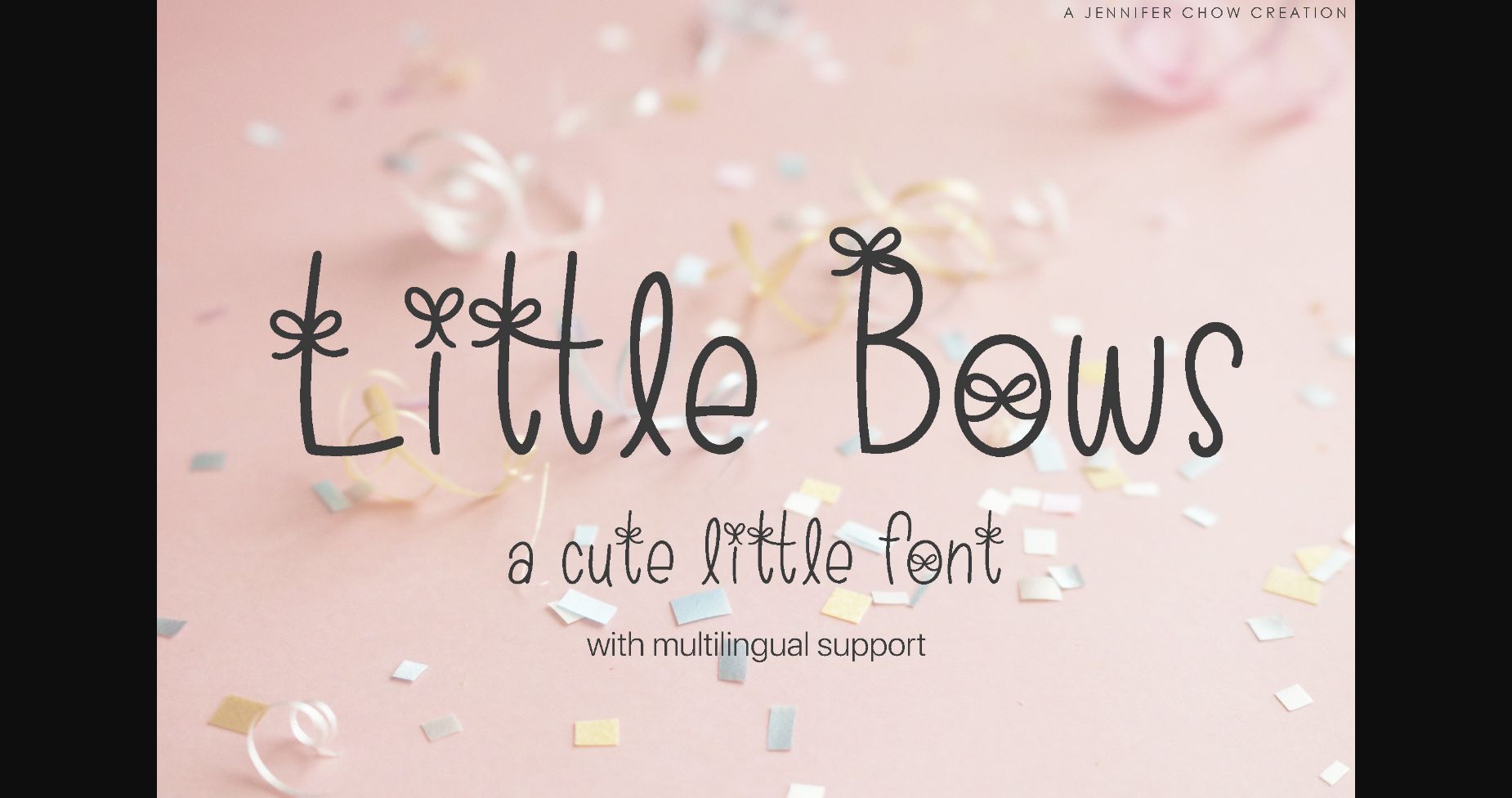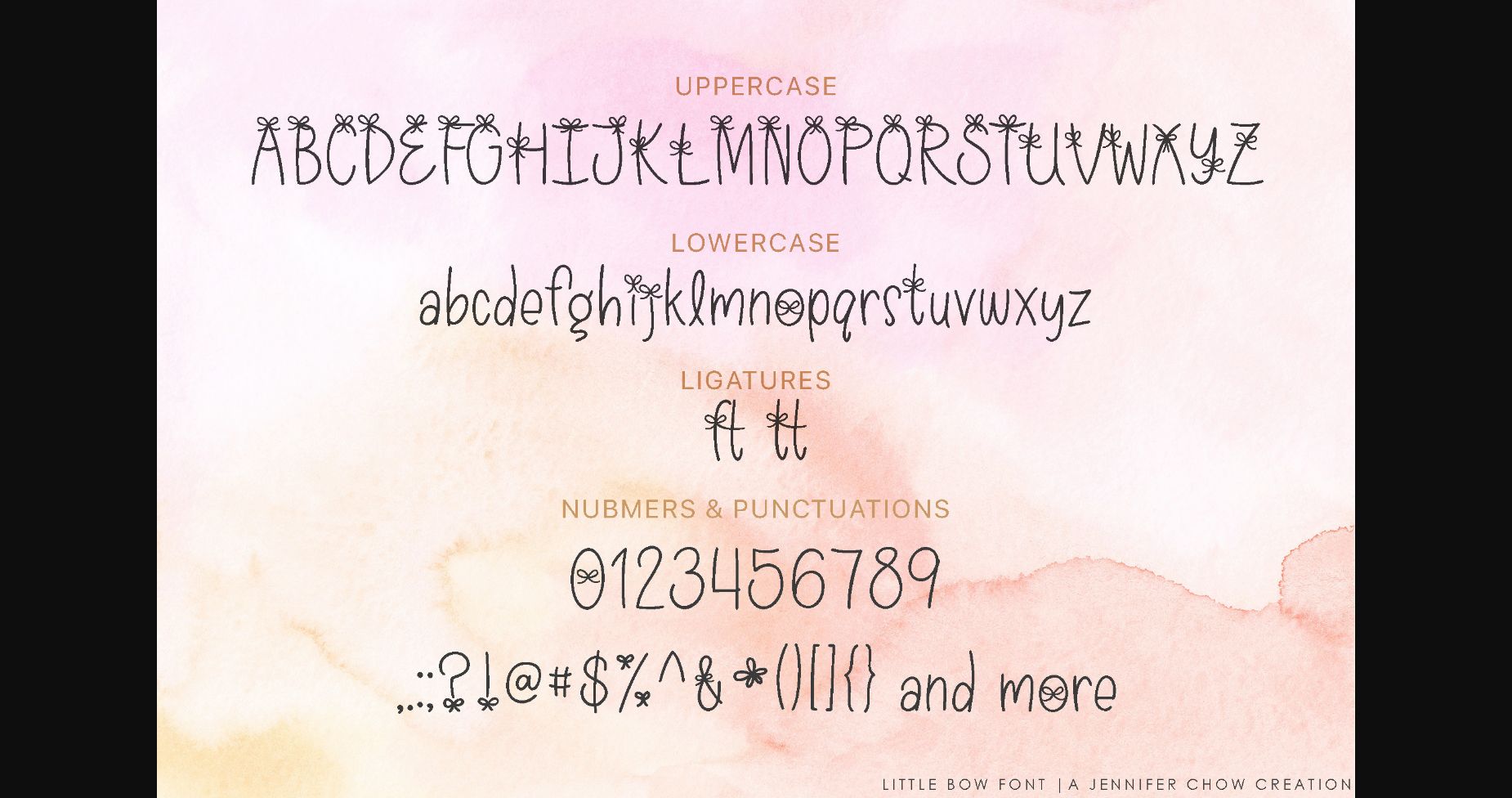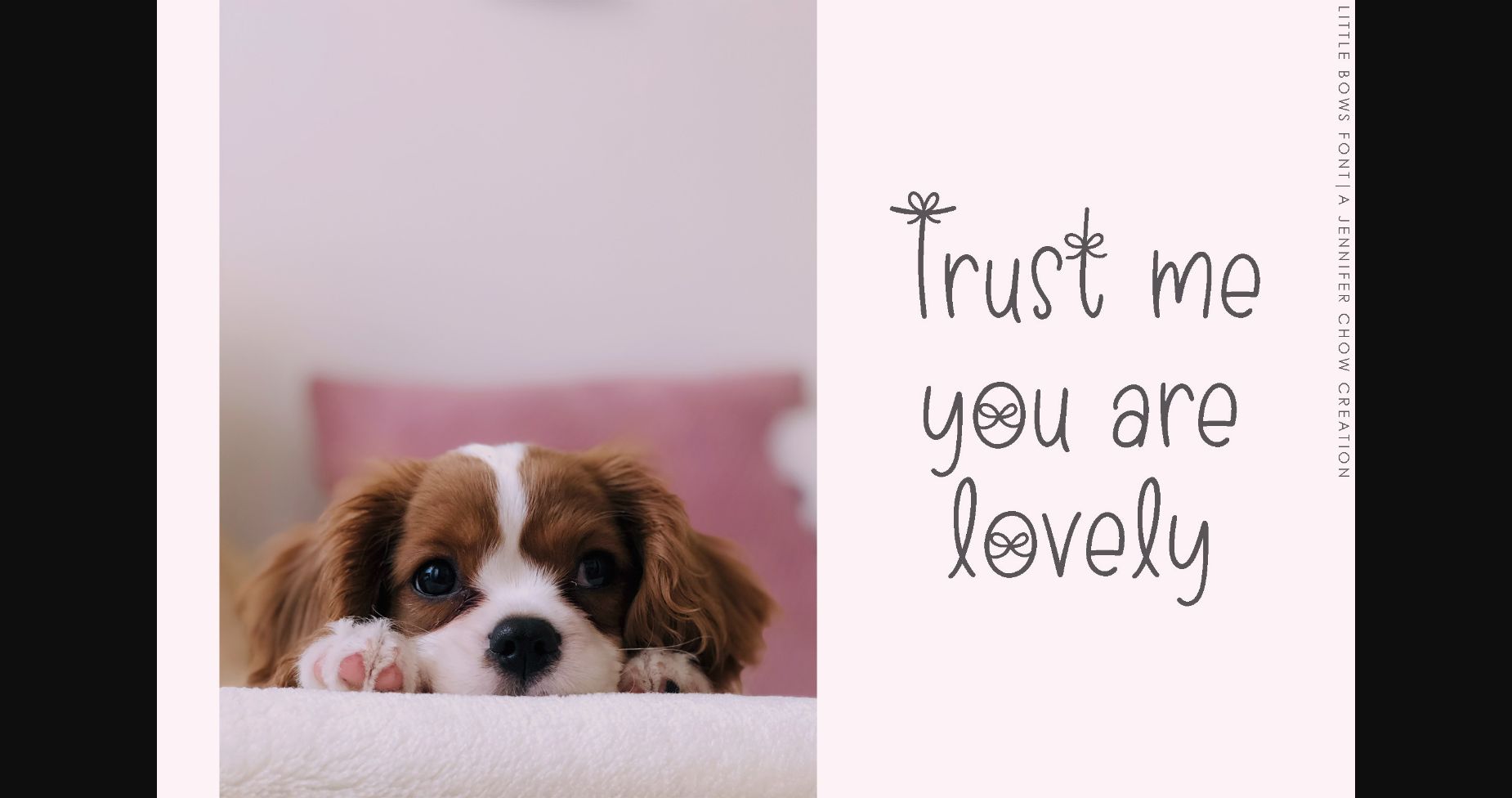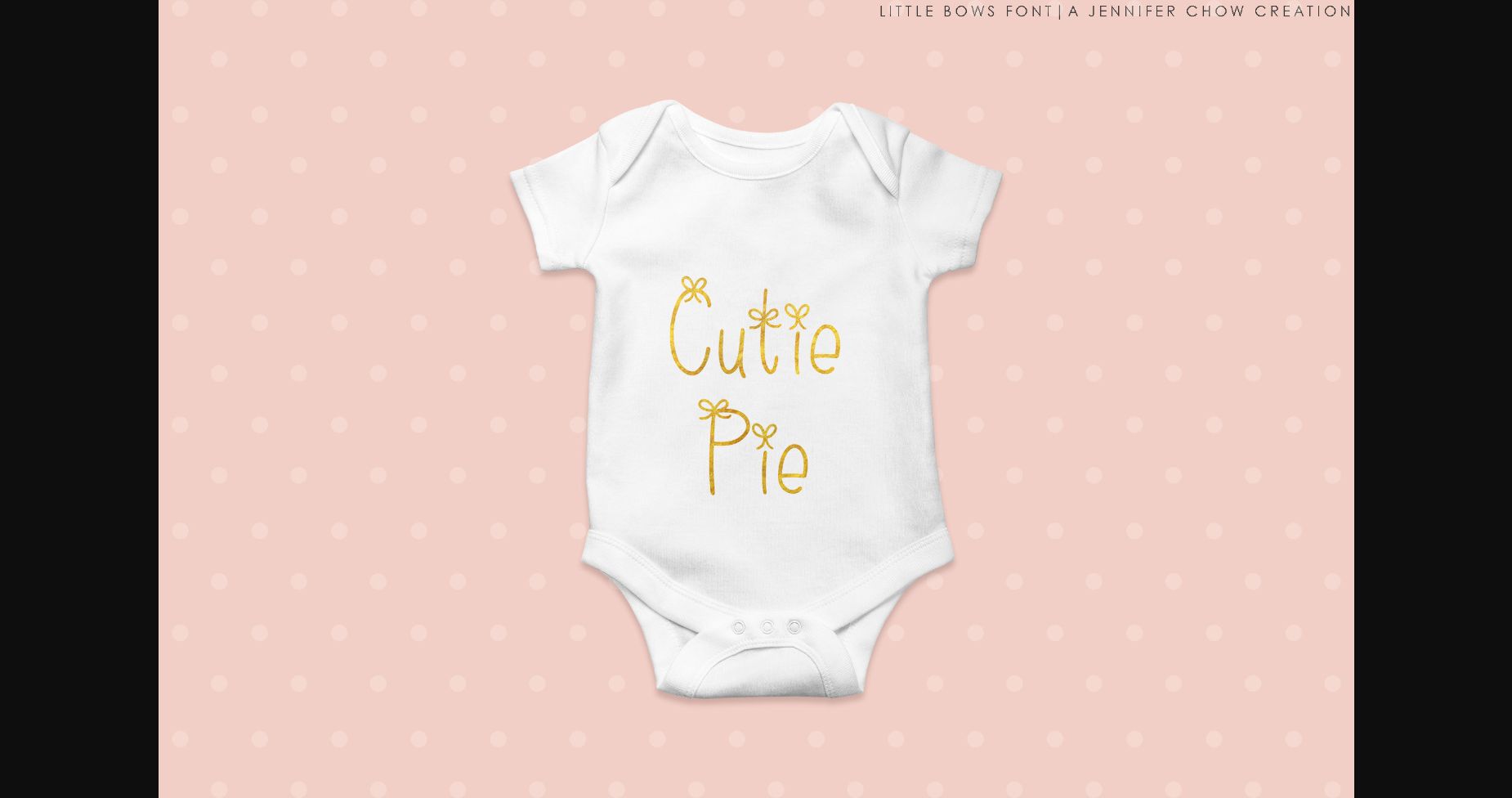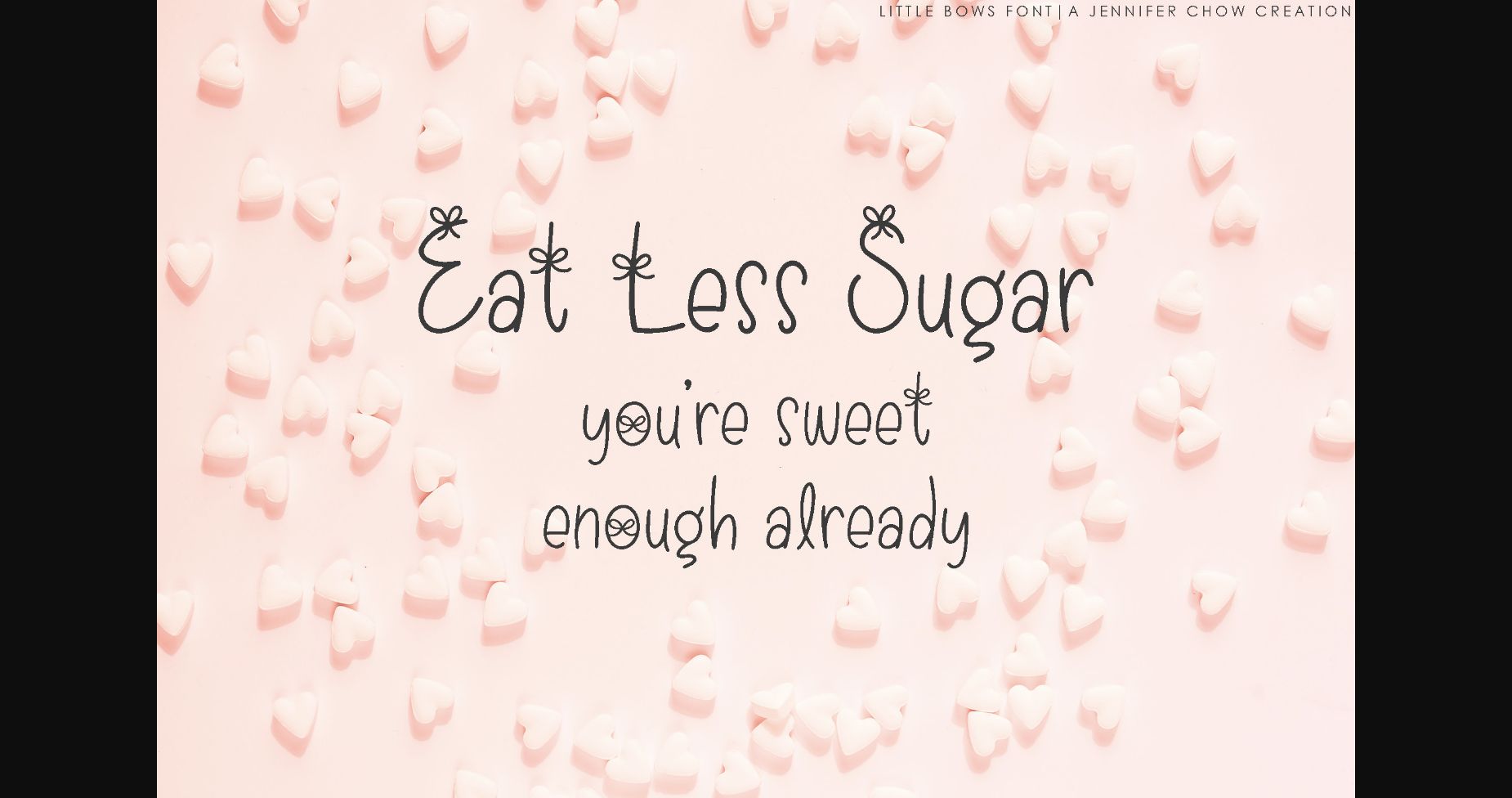
HomeSans Serif FontsLittle Bows Font Sans Serif Fonts Little Bows Font FacebookXPinterestWhatsApp 1 of 7 ... Little Bows Font Poster 2... Little Bows Font Poster 3... Little Bows Font Poster 4... Little Bows Font Poster 5... Little Bows Font Poster 6... Little Bows Font Poster 7... About Little Bows Font Little Bows is a cute, dainty and romantic sans serif font. Whatever the topic, this font will be a wonderful asset to your font library, as it has the potential to enhance any creation. DOWNLOAD NOW People also explored Happy Day Font Betran Font Keylla Sativa Font Doctor John Font Cutterlines Font Cute Christmas Doodles Font Canbera Grozny Font Just Chilling Font Sarisha Font 312 0 TagsLittle Bows Font Previous articleTestarossa FontNext articleBerghan Font LEAVE A REPLY Cancel reply Comment: Please enter your comment! Name:* Please enter your name here Email:* You have entered an incorrect email address! Please enter your email address here Website: Save my name, email, and website in this browser for the next time I comment. Personal Use Free Knox Personal Use Free Read more about this font Callisa Script Personal Use Free Read more about this font Dimensional Look71 Personal Use Free Read more about this font Ancient Script Personal Use Free Read more about this font BLOG Free vs Paid Fonts: Why Investing in Premium Fonts Is Worth It Free vs Paid Fonts: Why Premium Fonts Are Worth It in 2025 The debate of free vs paid fonts continues in the design world. While... Exploring Font Trends Best Fonts for YouTube Videos: Make Your Thumbnails Stand Out The 10 Best Handwriting Fonts to Add Personality to Your Designs